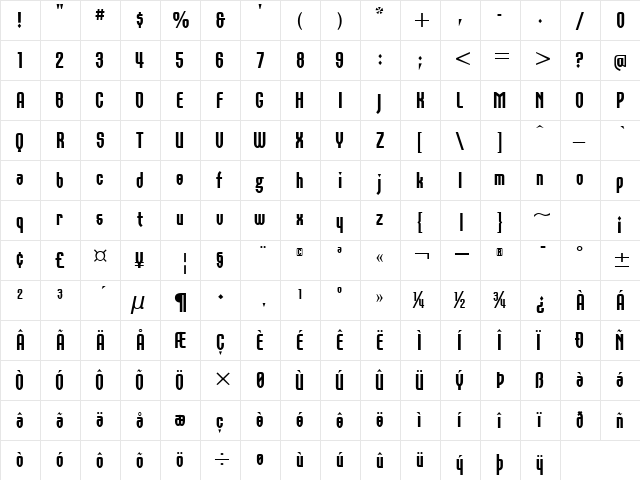
Orbon Black ITC TT Regular
Design Context for Orbon Black ITC TT Typeface
Orbon Black ITC TT takes a measured approach to typography — its balanced proportions and neutral character make it a reliable workhorse for both digital and print work.